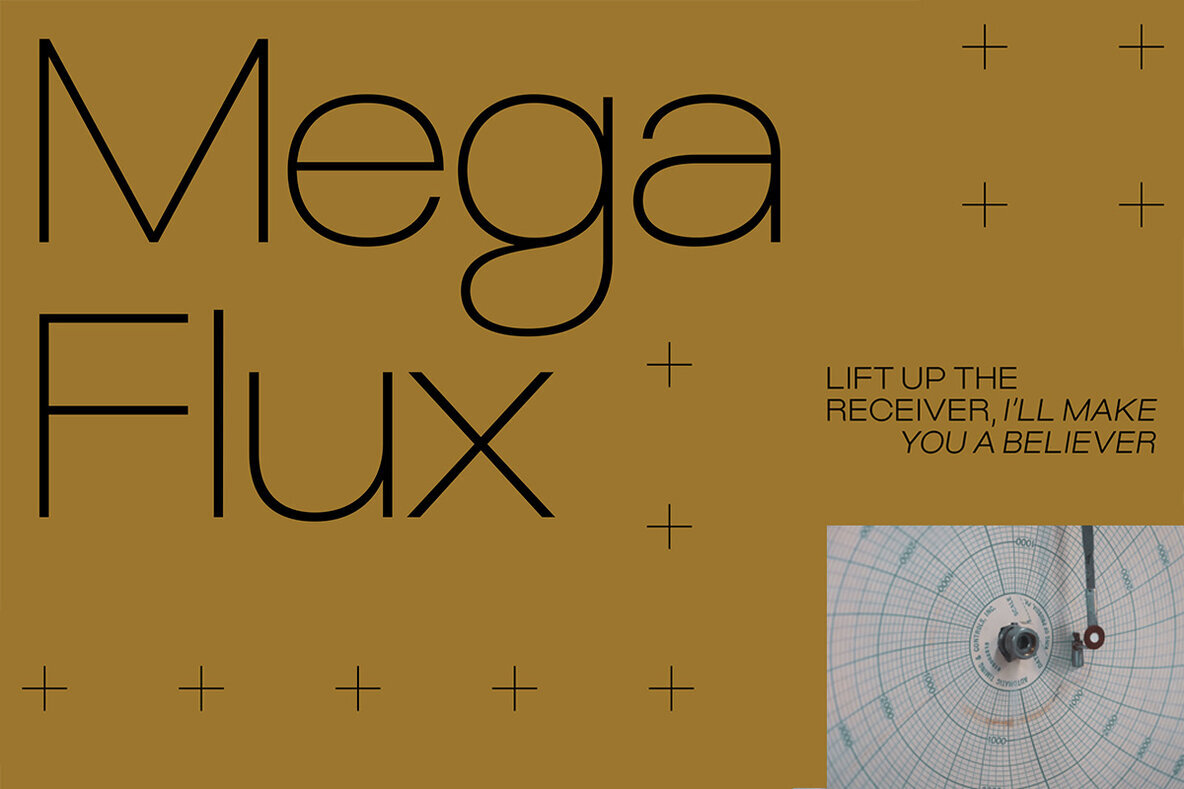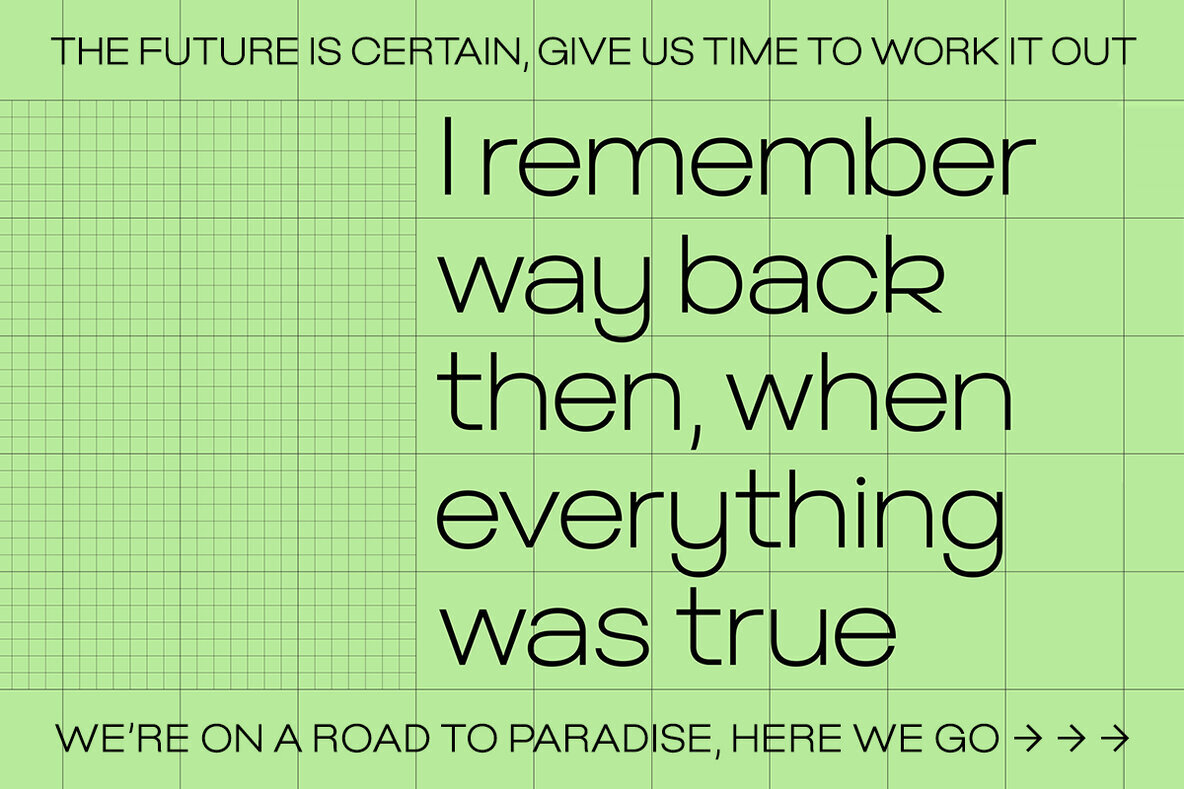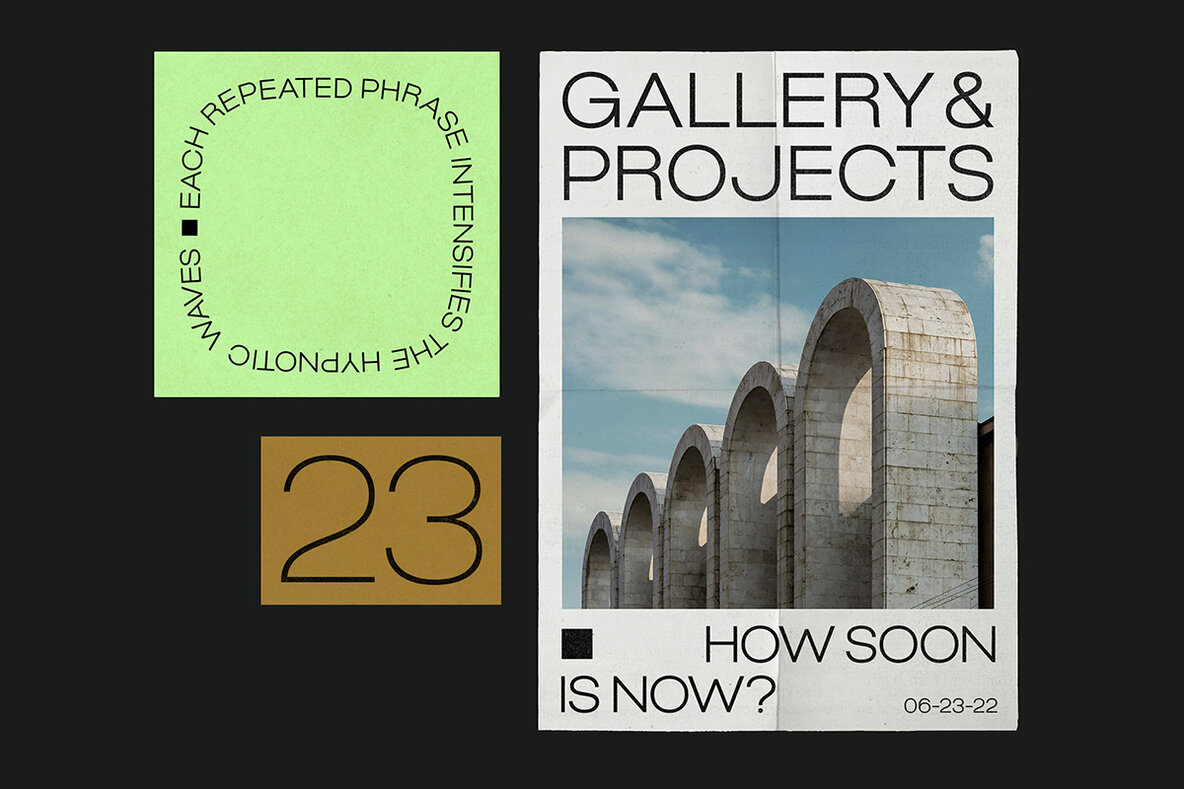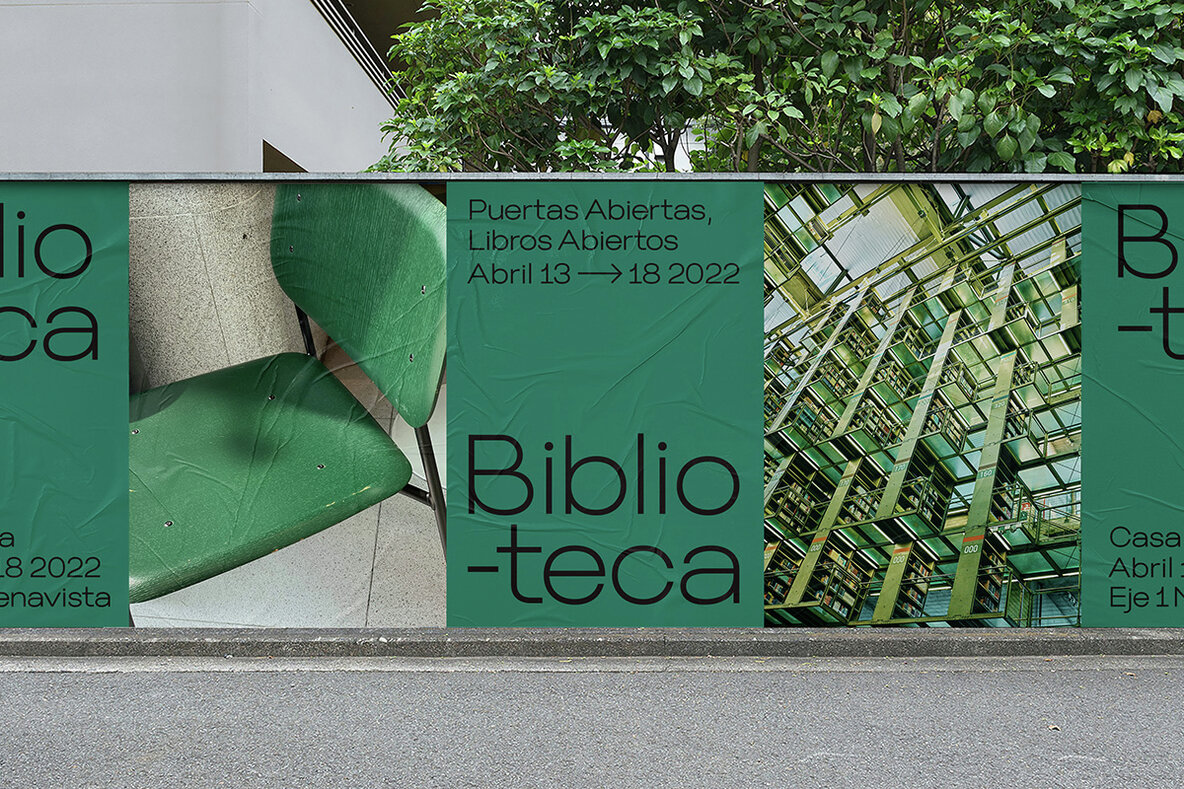
Holografik Font
Holografik is a Neo-Grotesk sans serif font inspired by scientific progress, existential wonder, and social oneness. With its wide structure and light airy weights, Holografik is an optimistic take on a Grotesk font. The stark Swiss style of the characters is softened with playful curved details, such as a bowed descender in the lowercase y, connected descenders in the alt lowercase g and y, and the curved bottom serif in the alt uppercase B and D. Featuring three weights and italics, it is ideal for use at larger scales like headlines, packaging, editorial, branding, and posters. Includes punctuation, glyphs, diacritics, numerals, icons, and multilingual support. Published by Valley Type.